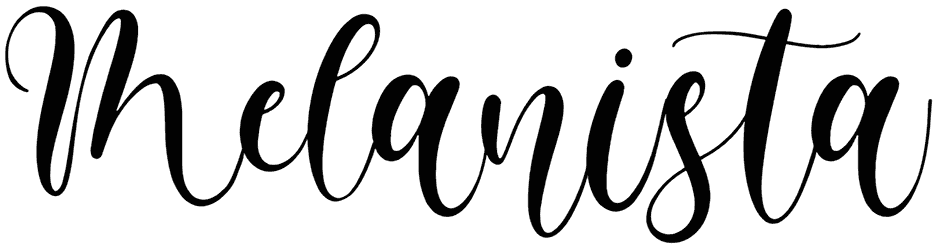
Melanista Font
Melanista is a script font with a smooth texture that fits a variety of artistic purposes, such as designing posters, logos, business cards, gift cards, and packaging.
It has a sophisticated flow that makes it a little bit challenging to read, but you can share a sense of precision, drama, softness, and personalization with your demanding customers. Please bear in mind that it doesn’t support numbers.
Font By Almarkhatype Studio